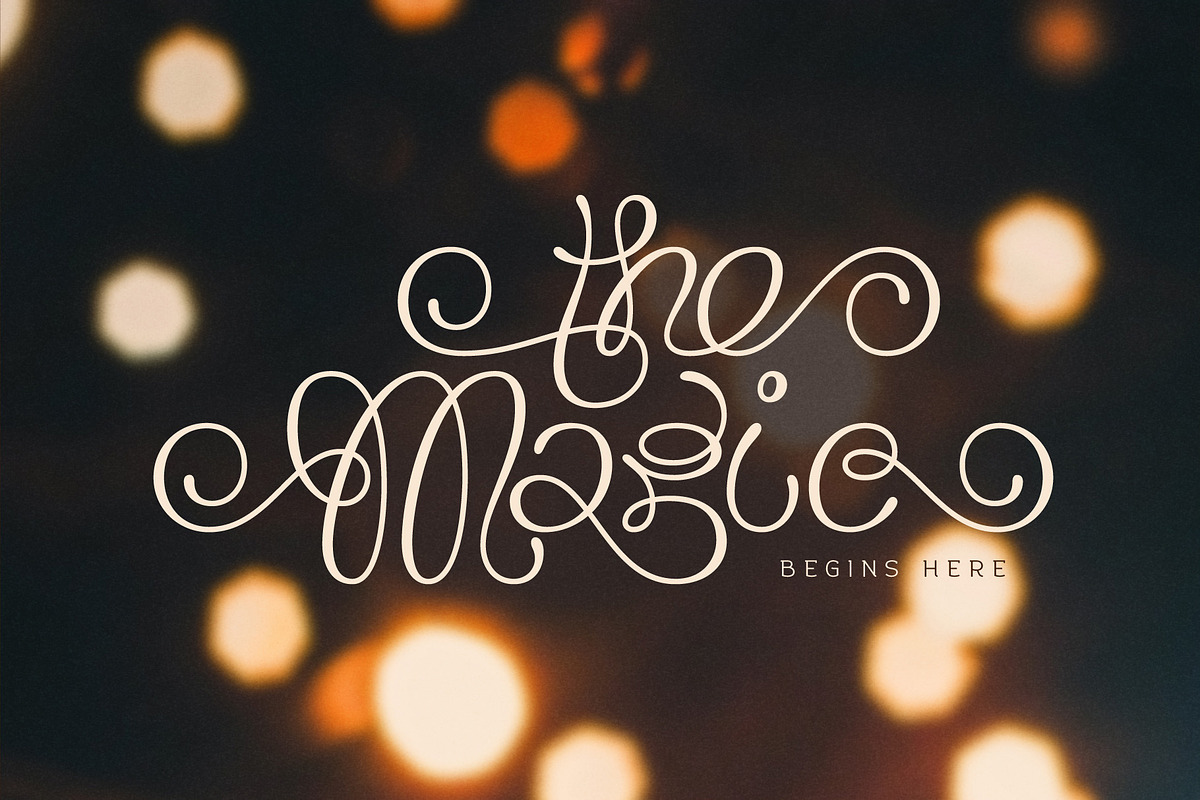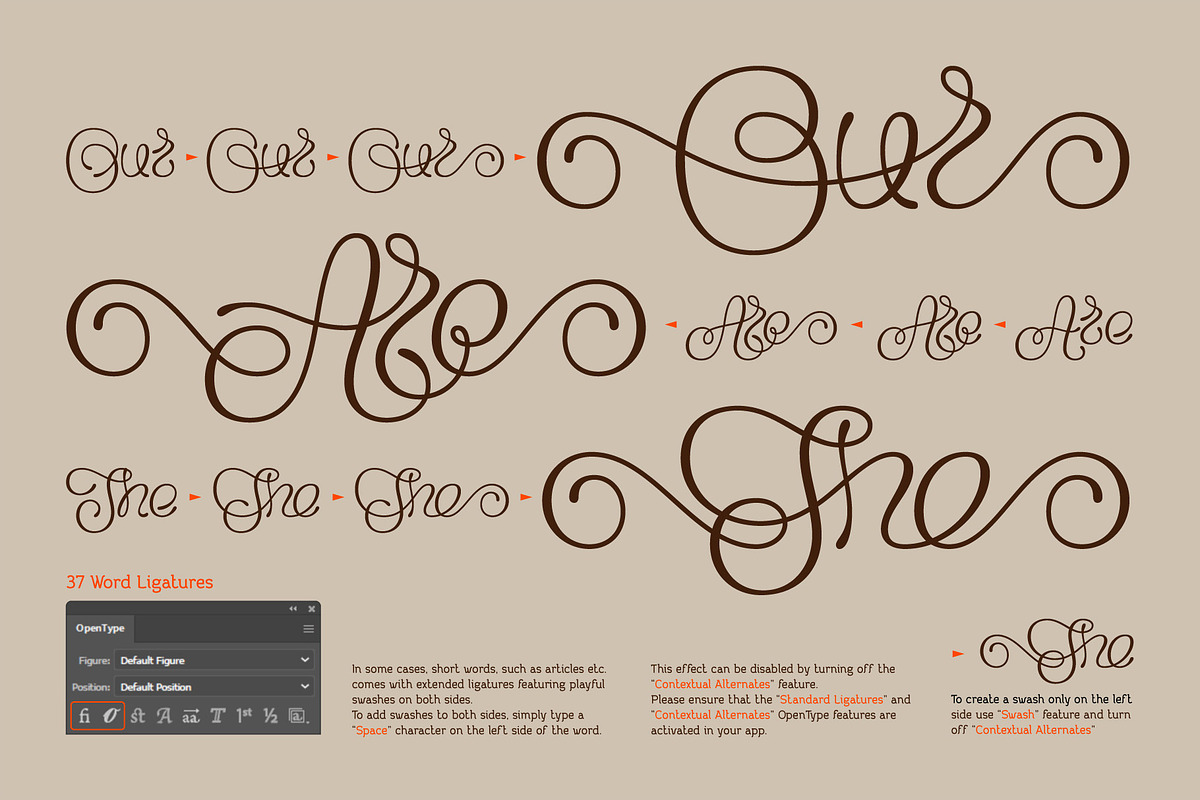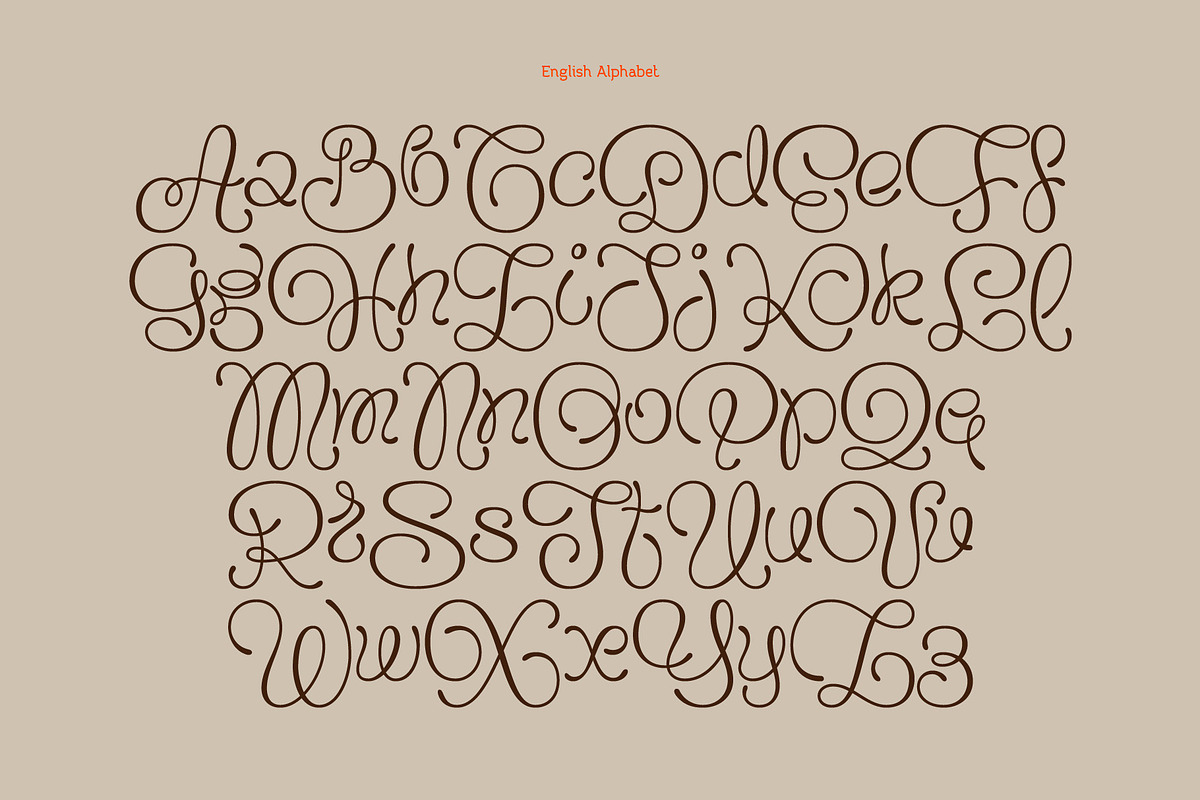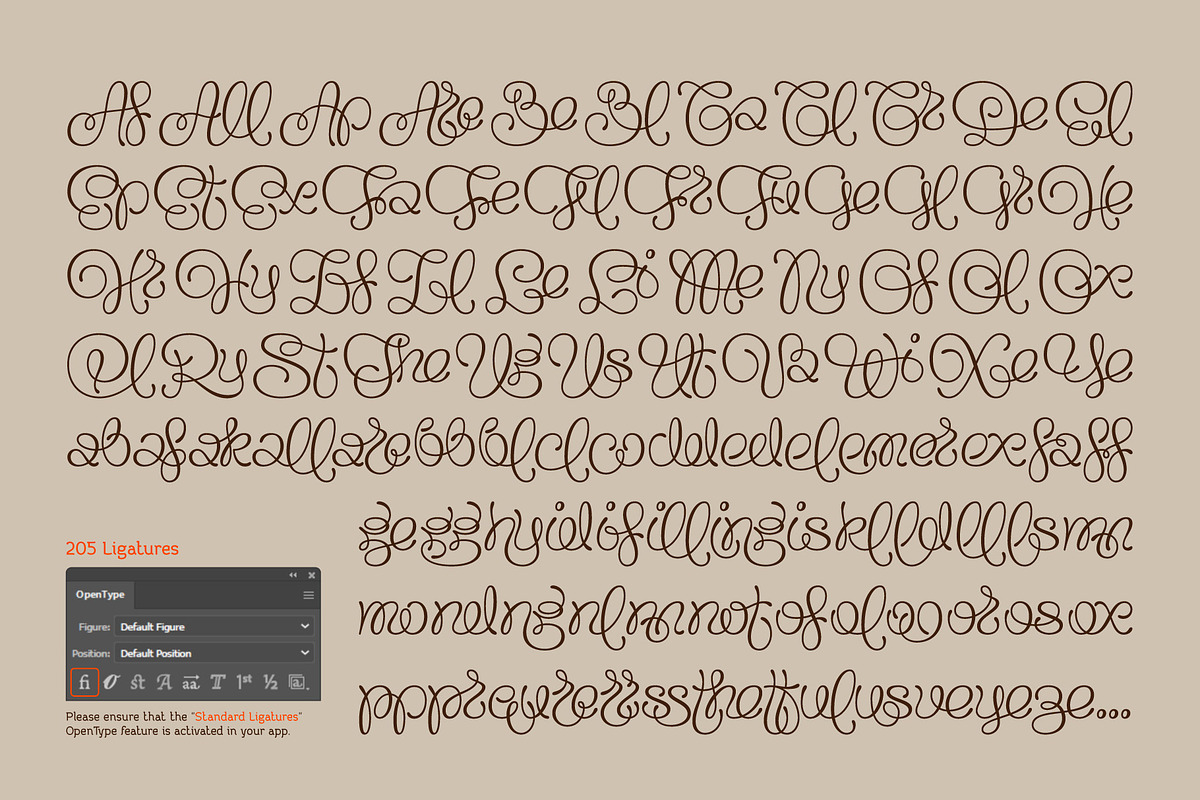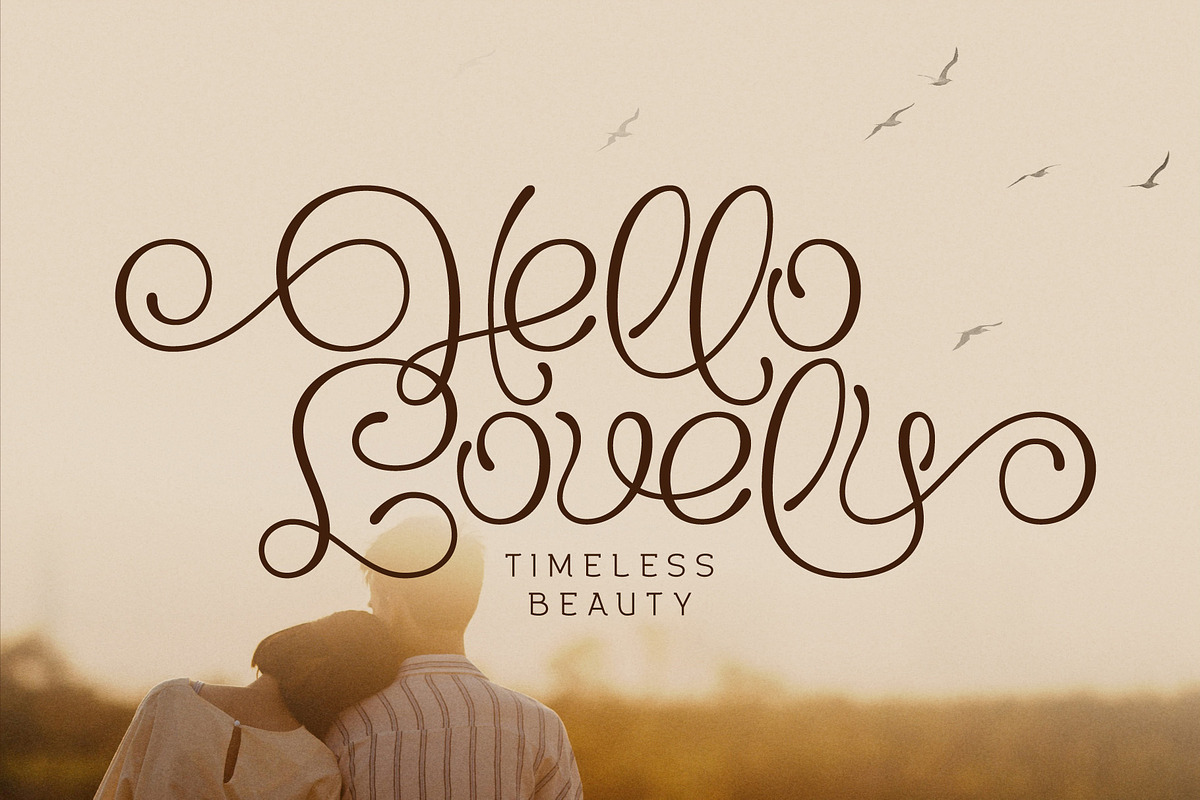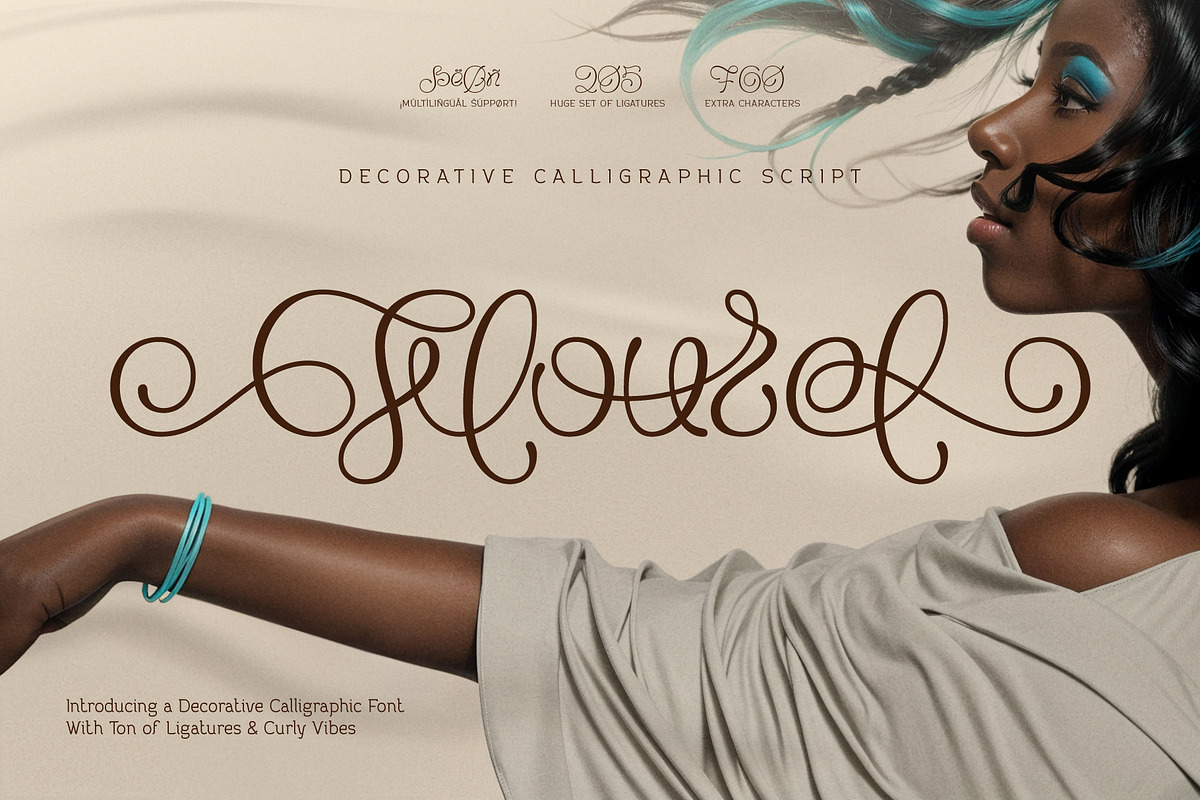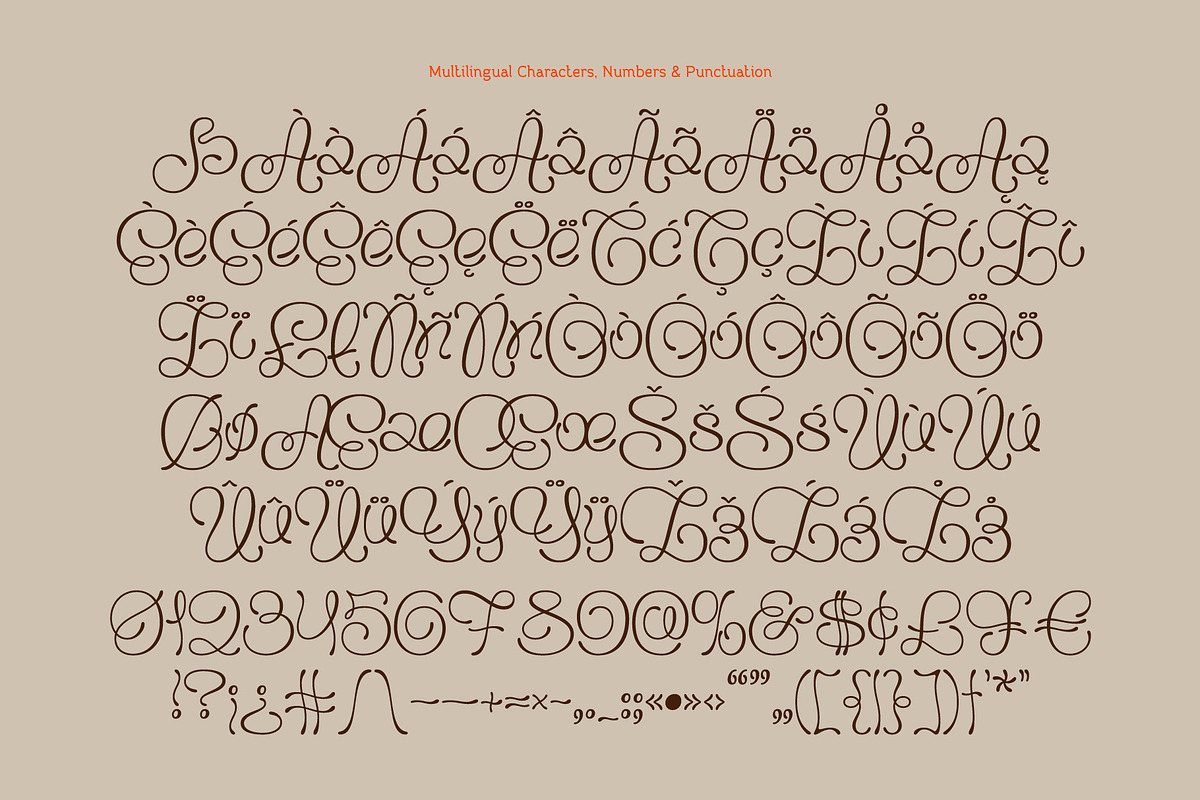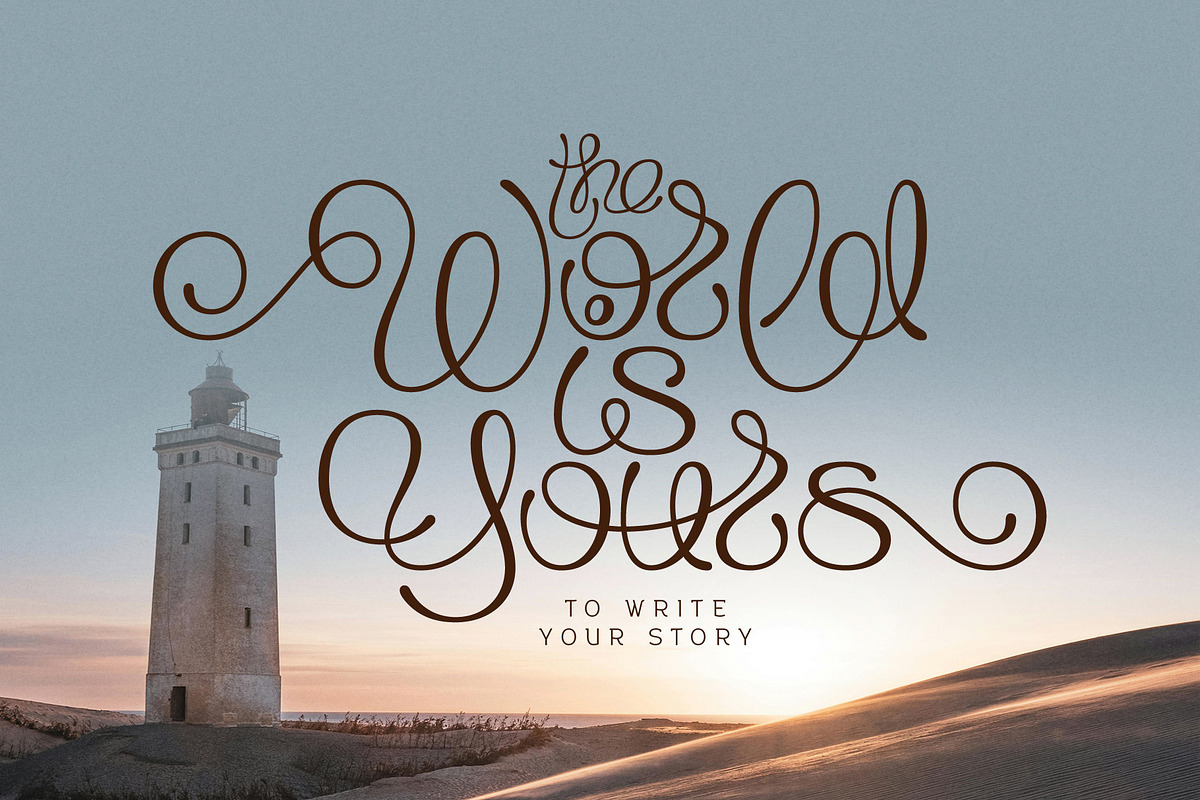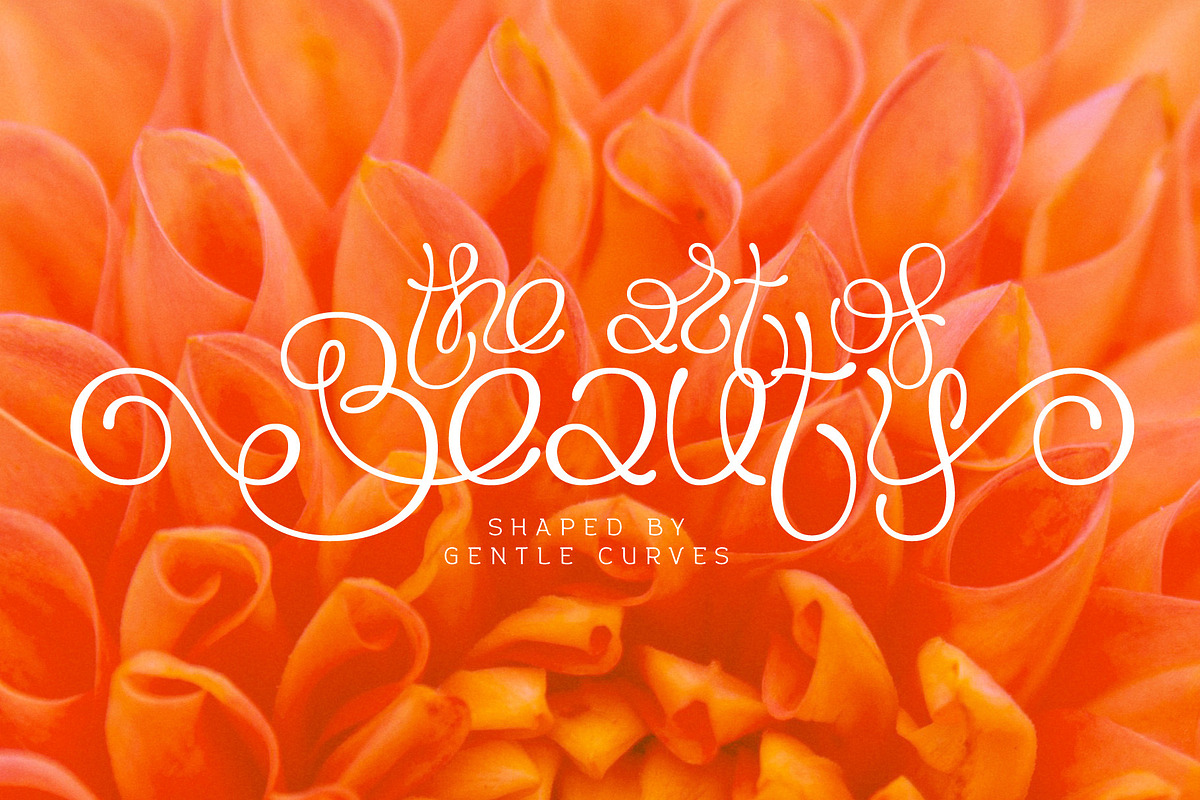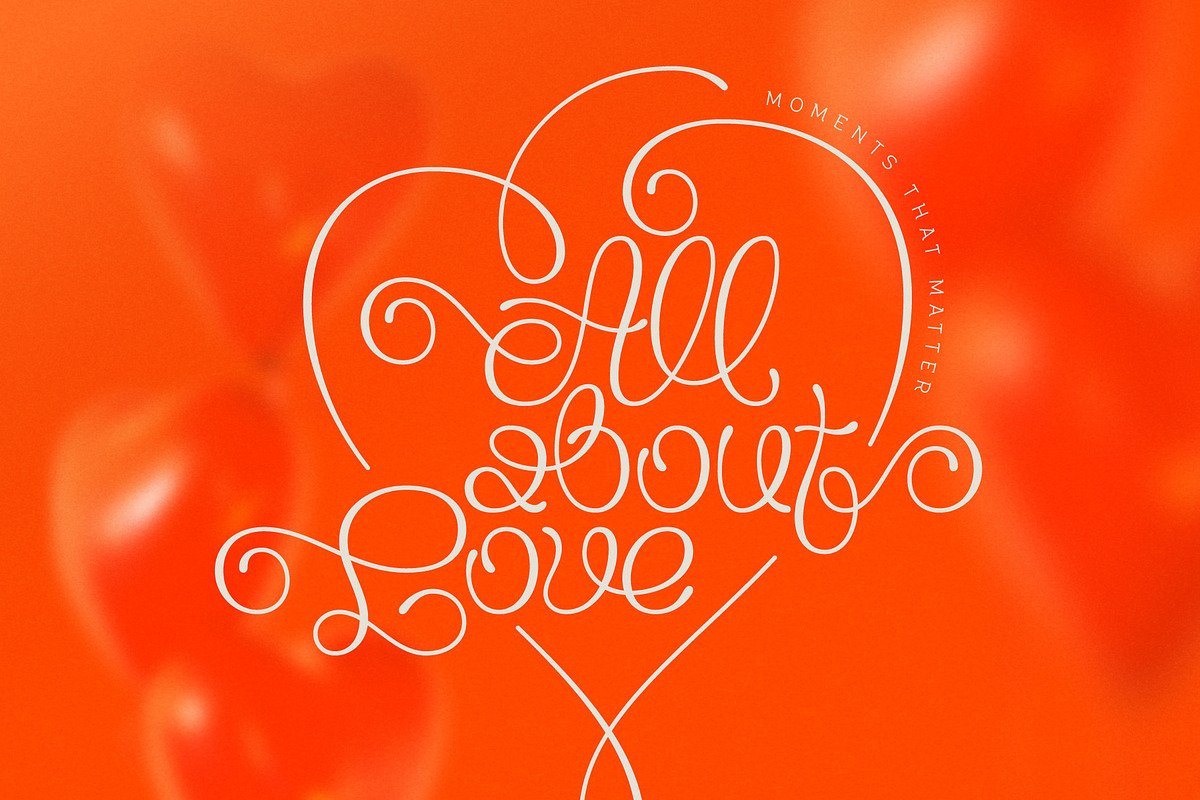
Flourel
Hi, introducing a decorative calligraphic font named Flourel. It's an elegant script type with curly vibes & smooth shapes.
Flourel font includes a lot of extra glyphs, such as various ligatures & letters with swashes. By default, the first and last letters of each word are replaced with special characters featuring curly swashes. In some cases, short words, such as articles etc. comes with extended ligatures featuring playful swashes on both sides.
This font offers multilingual support — check out the screenshots to see the full character set.